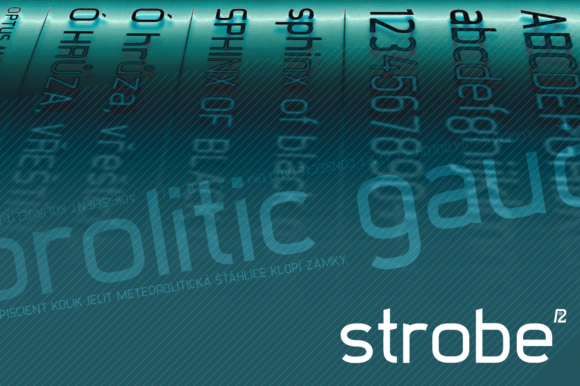
Strobe Font
Unleash the Allure of Strobe: The Epitome of Elegance and Simplicity for a Mesmerizing Digital Presence
In the vast realm of typography, where fonts dance across the screen, captivating hearts and minds, there exists a masterpiece that embodies the quintessence of sophistication and grace: the Strobe font family. A sans serif creation by the visionary Matej Sychra, Strobe is a symphony of clean lines, minimalist elegance, and boundless creativity. With its innate ability to elevate your designs to new heights of allure, Strobe is the ultimate choice for those seeking a font that exudes both refinement and functionality.
Immerse yourself in the world of Strobe, where every letter is an artistic expression, every word a captivating narrative. Let your imagination run wild as you explore the endless possibilities that this typographic gem has to offer. Whether you're crafting book covers that exude an aura of literary elegance, designing social media posts that ignite engagement, or creating invitations that capture the essence of special occasions, Strobe will elevate your creations to new heights of visual splendor.
Beyond its aesthetic appeal, Strobe is a font that embraces versatility, seamlessly adapting to a myriad of design applications. From the printed page to the digital realm, Strobe's crisp and legible forms ensure that your message is conveyed with clarity and impact. Its clean lines and minimalist design make it the perfect choice for both traditional and contemporary projects, granting you the freedom to explore a wide range of creative avenues.
With Strobe by your side, you'll embark on a typographic journey like no other. Experience the transformative power of a font that breathes life into your digital creations, captivating audiences with its understated elegance and timeless appeal. Join the ranks of those who have discovered the allure of Strobe, transforming their designs into works of art that ignite emotions and leave a lasting impression.